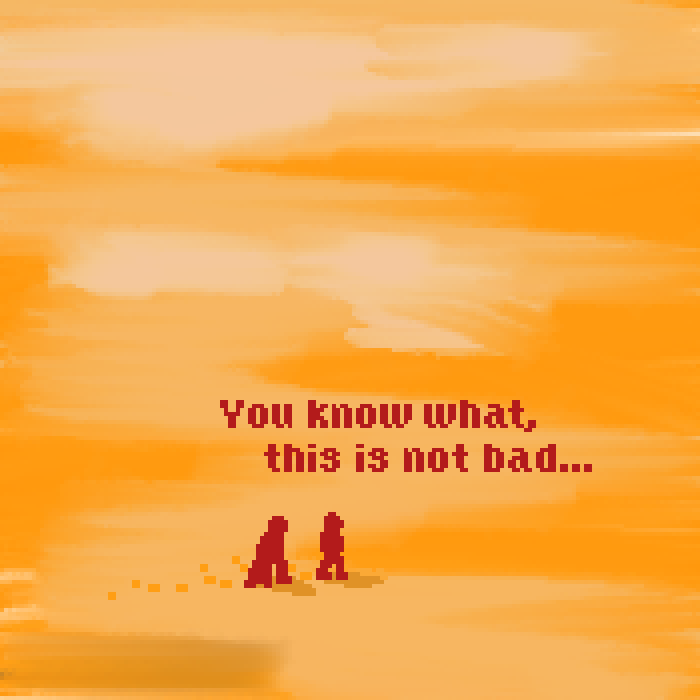
• A work-in-progress chunky pixel font with short ascenders and descenders.
The name “Newroku” is a play on Rusyn “нювроку” (/nʲu'roku/), an exclamation/adverb with one of the meanings close to “fairly, decently, strongly”. Since this is a fairly bulky font, one might call it “нювроку читавый” (/nʲu'roku 't͡ʃɪtavɤj/) in Rusyn.
The current plan is to finish Cyrillic and Greek, kern it good, then work on a lighter version for body texts.